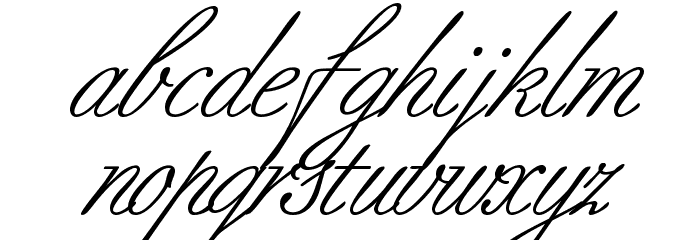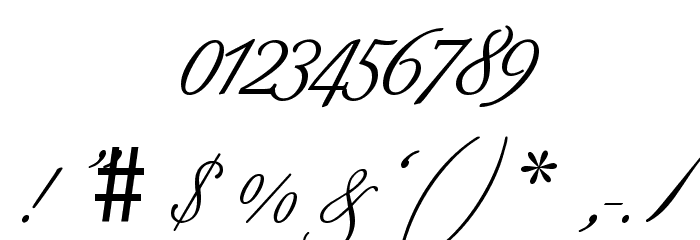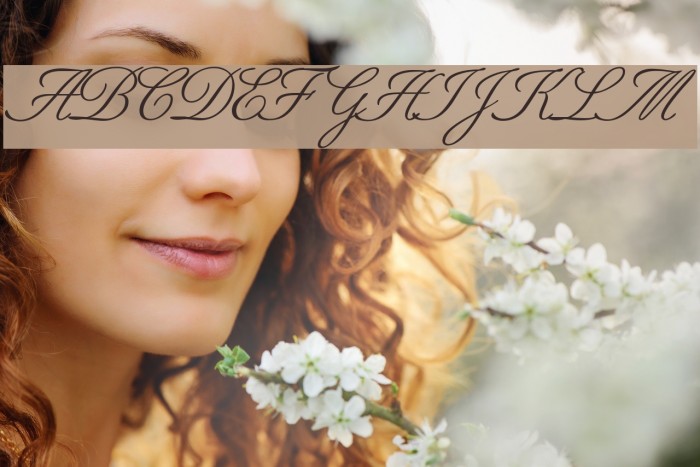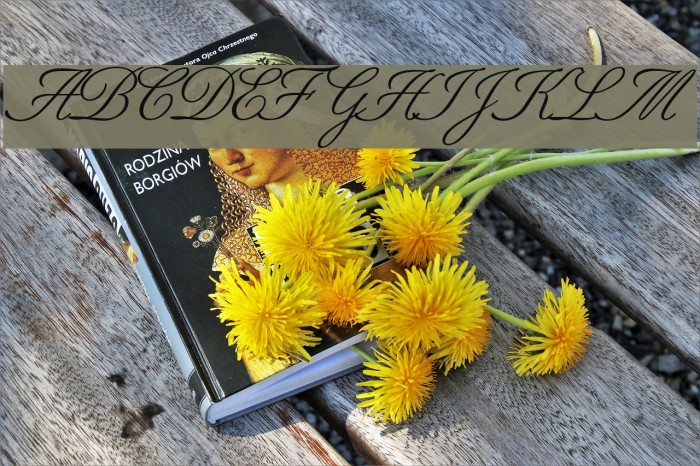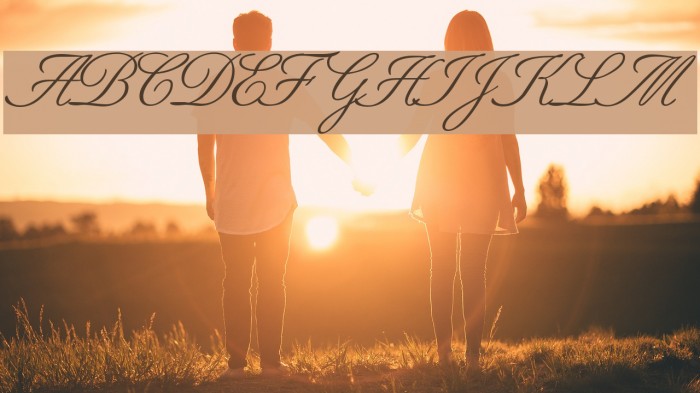
BestDB Normal Font
This elegant script font features a flowing, cursive style with high contrast between thick and thin strokes. The uppercase letters are ornate and sweeping, while the lowercase letters maintain a graceful, connected form. The numerals and special characters complement the overall aesthetic with their fluid curves and stylish flair. This font exudes sophistication and is perfect for projects that require a touch of elegance and class.
A sophisticated script font with flowing, elegant curves.
- Proposed Projects: Ideal for wedding invitations, elegant branding, luxury product packaging, and formal event programs.
- Character Spacing: Tight
- Contrast: High
- Overall Style: Elegant
- Use Case: Logos, Invitations, Branding